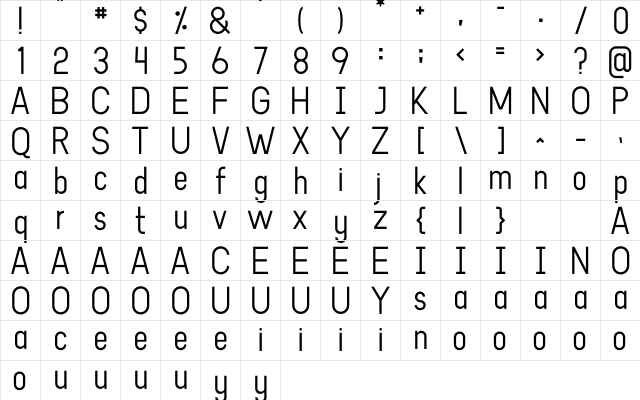
Goodlight Light Regular
| Foundry | Daler Mukhiddinov |
| Designer | Daler Mukhiddinov |
Design Context for Goodlight Light Typeface
Goodlight Light offers clean, dependable letterforms without strong stylistic allegiance, making it a practical choice for designers who need flexibility. The delicate stroke weight brings airiness and refinement to layouts.